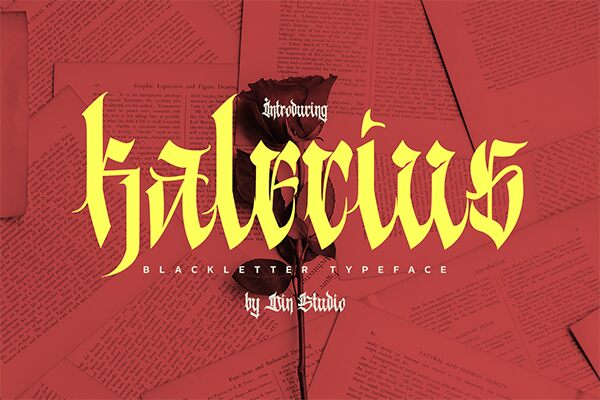
Kalecius, designed by Din Studio, is a gothic font with a medieval style. Its extra-condensed width adds a unique touch to your designs. This font is perfect for projects that require a modern and stylish aesthetic with an artistic twist.
Whether you need a captivating logo, eye-catching book cover, attention-grabbing poster, trendy t-shirt design, or impactful branding and advertisement materials, Kalecius has got you covered. With its versatility and allure, this all-in-one package will elevate your creations to new heights.
Let Kalecius unleash your creativity and captivate your audience!